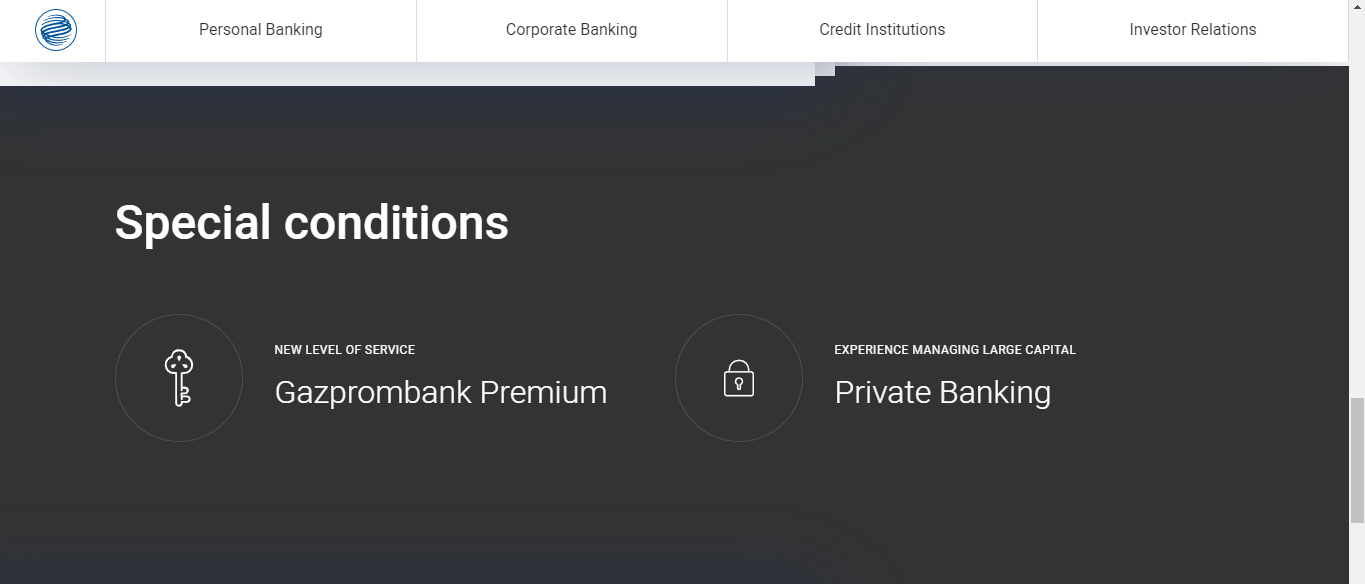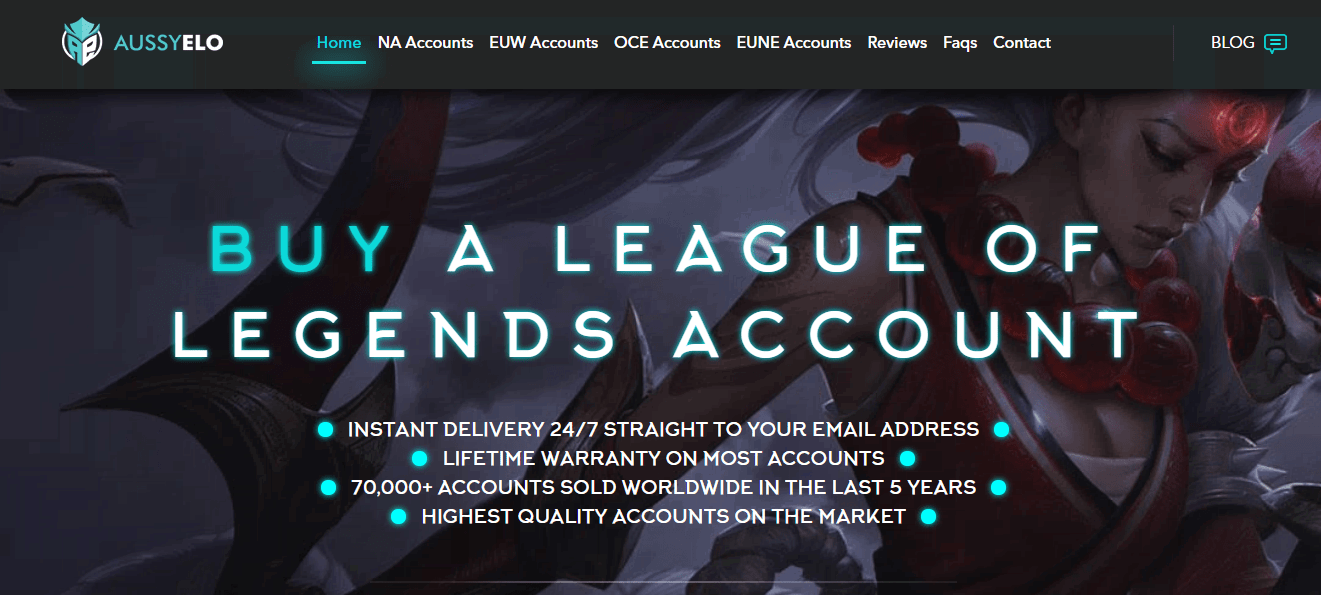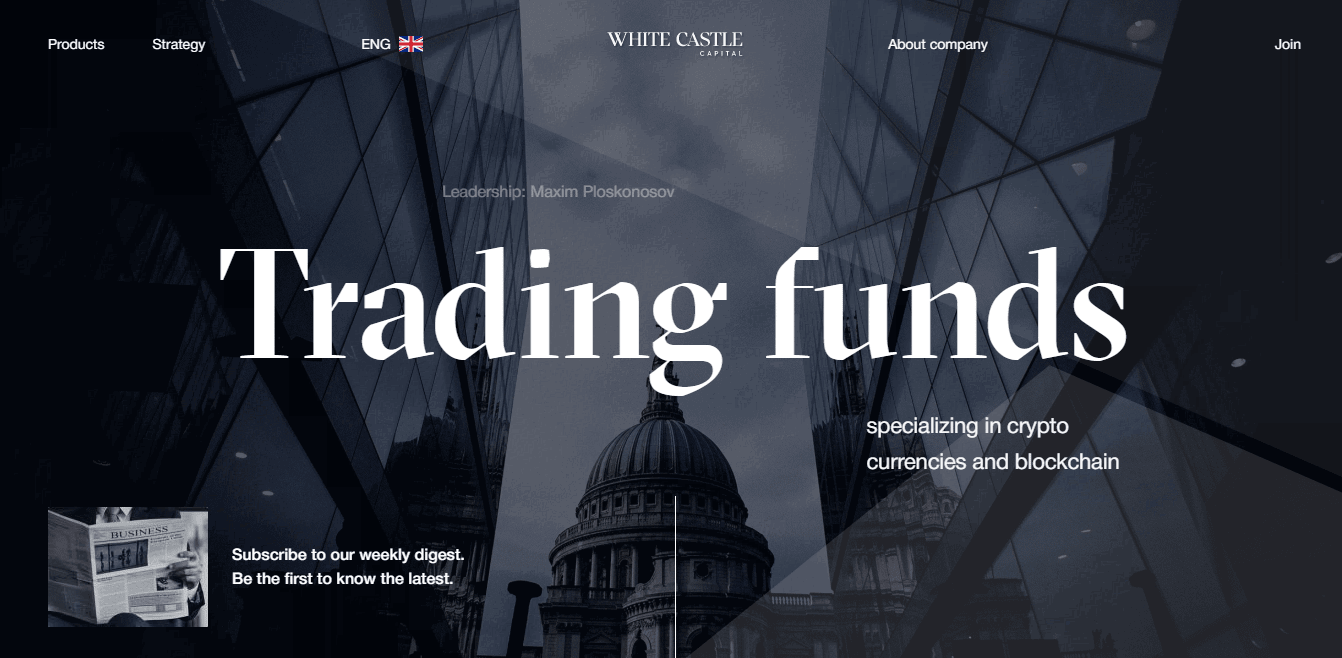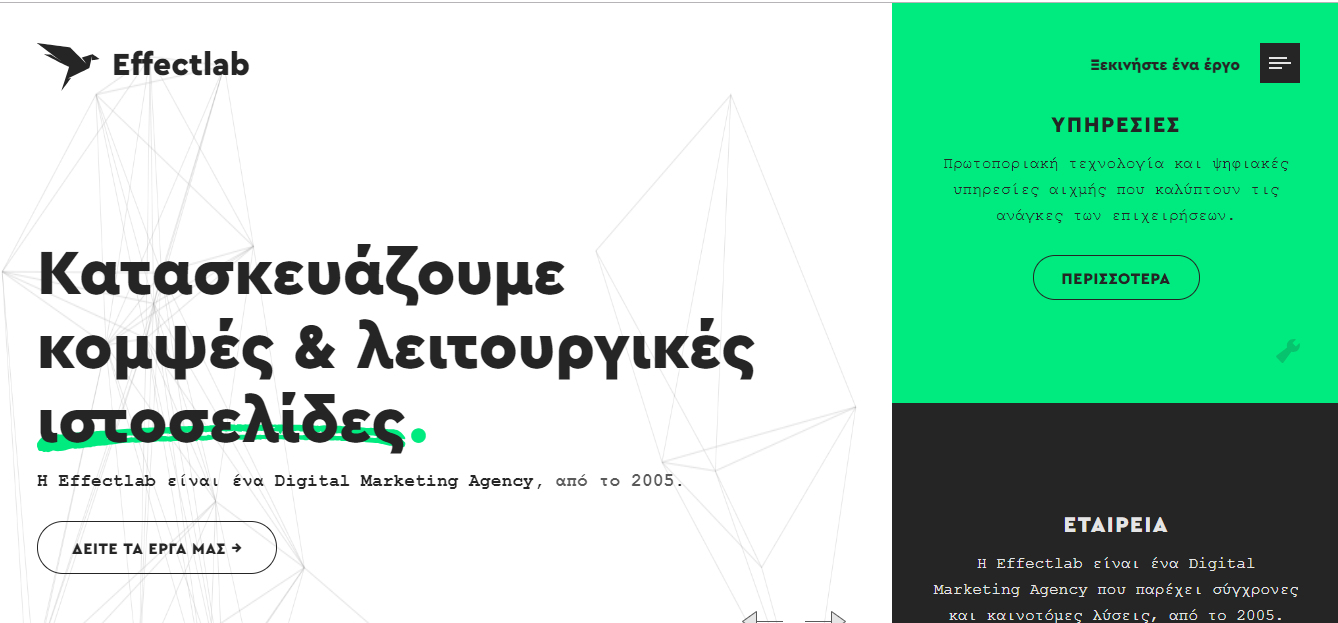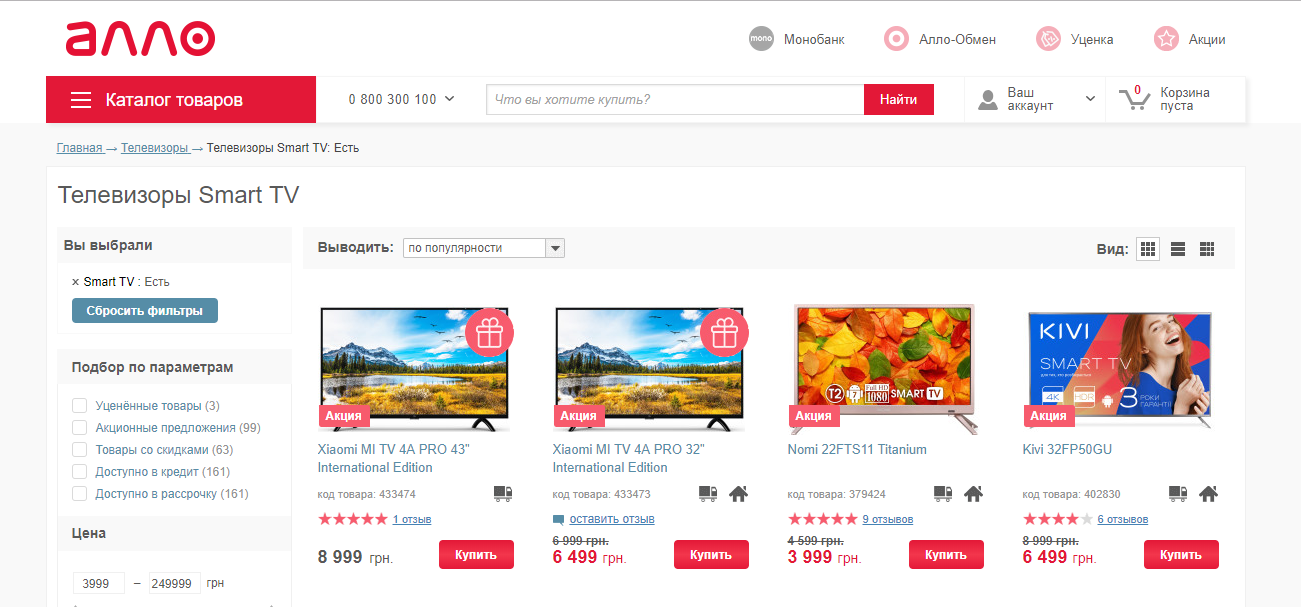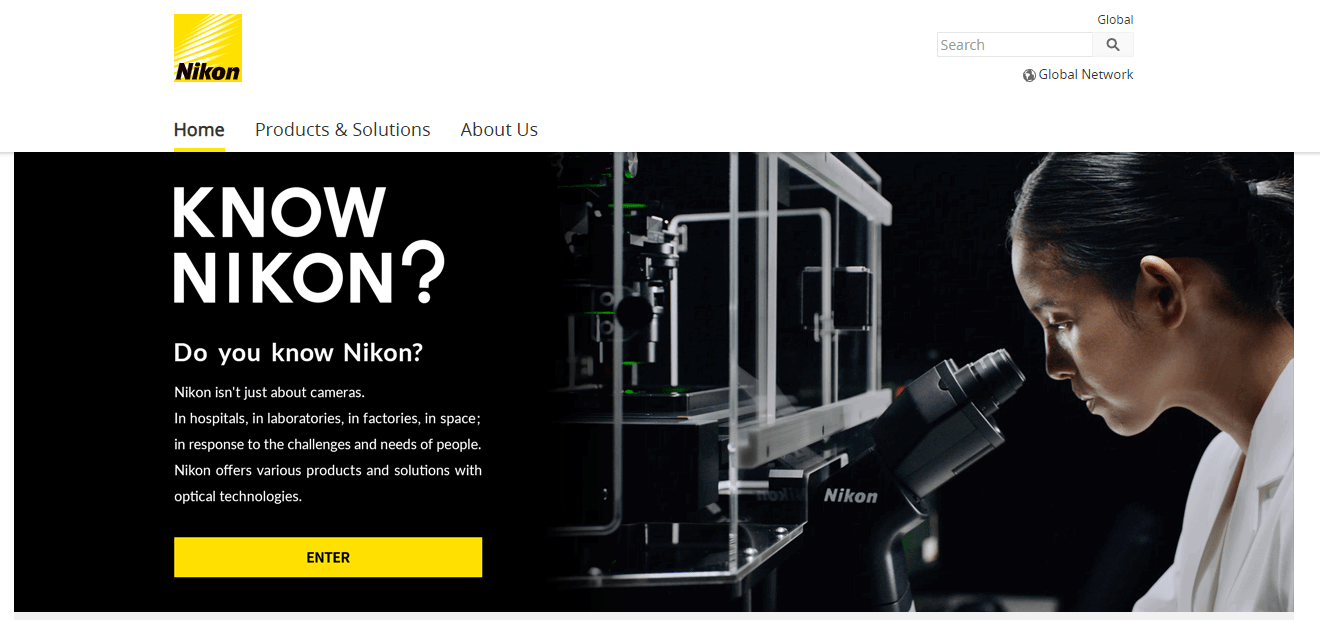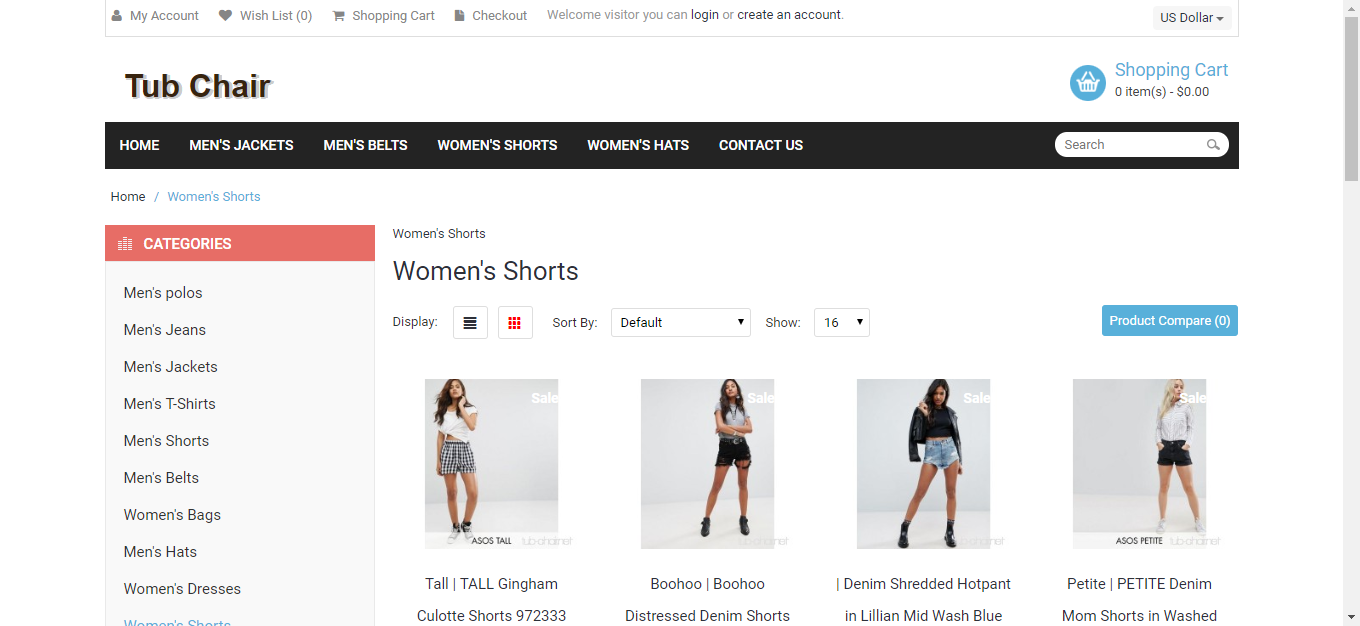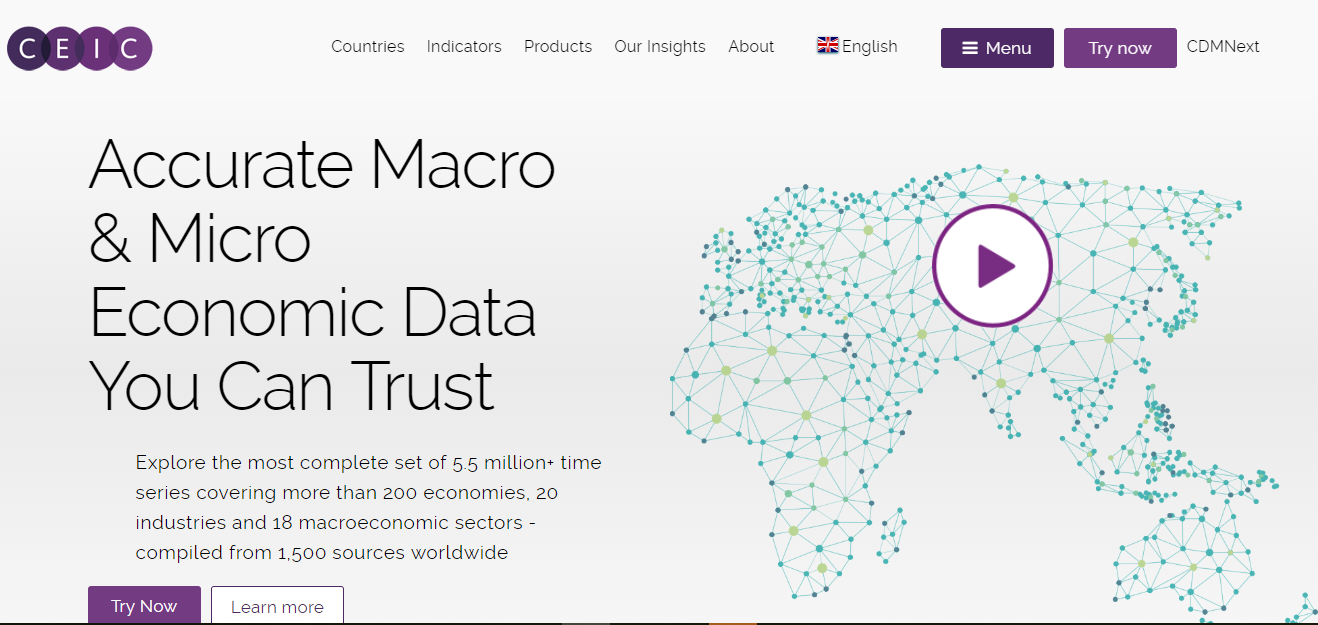
How to choose fonts and colors for a website
To create a stylish website design, you need a basic knowledge of color theory and the art of typography. When choosing colors and fonts, you should pay attention to the associations that they traditionally evoke among users.
How to choose fonts depending on the website subject
As scientific research proves, fonts affect the assessment of printed information. Also, experiments confirm that optimal website fonts may vary depending on the website subject to arouse relevant associations among readers.
Traditional sans-serif fonts, for example, Verdana or Aria, are suitable for a corporate website as they are associated with a strict business style:
Sans serif fonts
For children's and entertainment portals, it is worth using more interesting, thinner and fantasy fonts that will appeal to a younger audience:
Fonts for entertainment portals
For academic papers, Serif fonts are more suitable. An experiment conducted in 2015 showed that readers perceive scientific texts written in such fonts more favorably:
Serif fonts
The reader's perception of the text, in addition to the font and its size, is influenced by color, typeface, spaces between characters and line spacing, and column information. The main thing is that the text is legible, easy to read both on a computer and on portable devices.
How to choose a font
When choosing a font for a site, you should follow these guidelines:
• use no more than four fonts on one page;
• use sans-serif fonts for main text as serifs make reading difficult on the screen;
• use serif fonts in the printed texts since readers associate them with reliability and respectability;
• use the Monospace family fonts for program code examples, instructions, or typewritten text;
• using custom fonts, such as Script and Fantasy, to design headlines and accents to attract attention;
• for headings and calls to action use larger font sizes than plain text.
Examples of fonts in graphic design
1
Craft fonts
Fonts on your website are a part of your brand; think about your brand first, define its properties and qualities.
• In this example, you can see a package of ice cream where the producer wants to highlight the naturalness of their product. Fonts with imitation of embossed letters, calligraphy, something hand-made, home-made, warm in the atmosphere are excellent for this purpose:
Craft Fonts on Ice Cream Packaging
• here's a similar font:
Craft Font
2
Handwritten fonts
Brand fonts which imitate handwriting are perceived as kind, open-hearted, and responsive; in this example, you can see the dog food:
Handwritten font on packaging.
These fonts are also good for children's brands as well as for any brands where it is important to express care and responsiveness.
These alternative fonts set the informal style well.
Adlery Pro Font
Amatic SC Font
3
Serif
Serif fonts are great if you want to show commitment to tradition and company stability. These fonts animate the brand with a combination of vibrant graphics or colors:
Serif Fonts
Barrels Font
Font Merriweather
4
Sans Serif
Openness, transparency, flexibility — all these things can be reflected via an expressive sans-serif font. A font with bold and combined with emotional live photos gives a sense of brand openness:
Sans Serif Fonts
• among paid ones, there is a modern font Gilroy:
Gilroy Font
• among free fonts, there is Open Sans with a variety of typefaces:
Open Sans Font
How typography can help emphasize important information
Various methods are used to attract the user's attention to a specific text:
• change the typeface — highlighting in bold or italics;
• coloring individual information blocks or conversion elements:
The graphical selection page conversion elements
• change the color or size of a font.
How to use spaces in the text
When designing a text, you need to pay attention to the correct use of spaces. Let's consider the rules of correct spacing on examples.
Line spacing too long
Bad. When shifts between the lines are too huge, and this solution is not justified by anything, the text is simply inconvenient to read, it is very stretched vertically, and users need to scroll the page again.
Line spacing too small
Bad. Too little distance between the lines confuses the reader, it is difficult for them to understand where the next line begins in the text; as a result, your beautiful text may simply not be read due to this small detail about the distance.